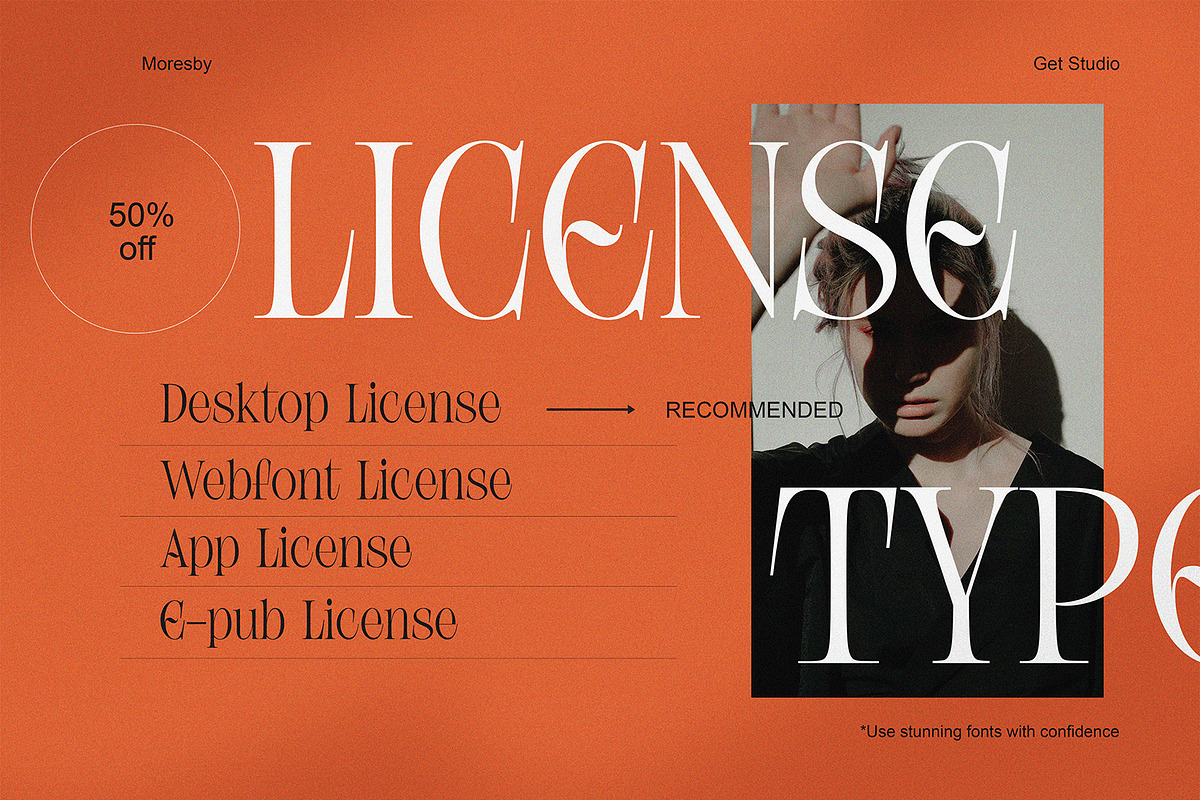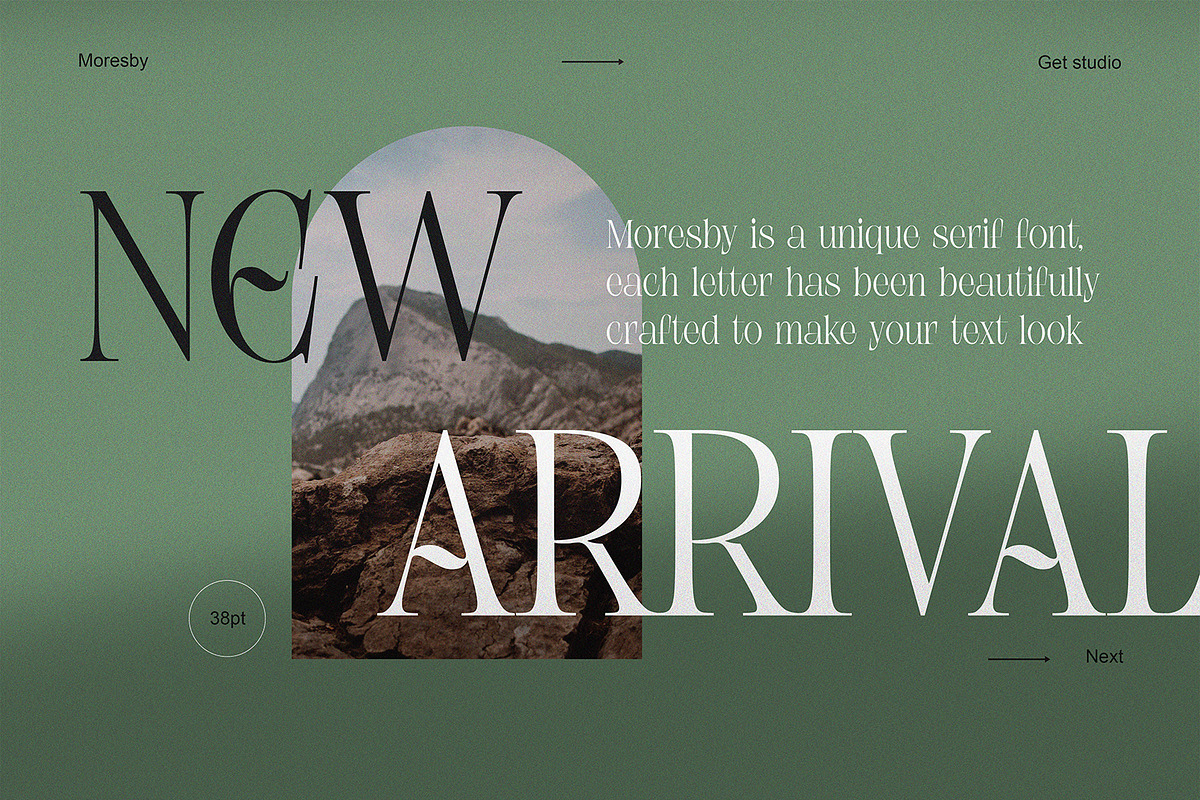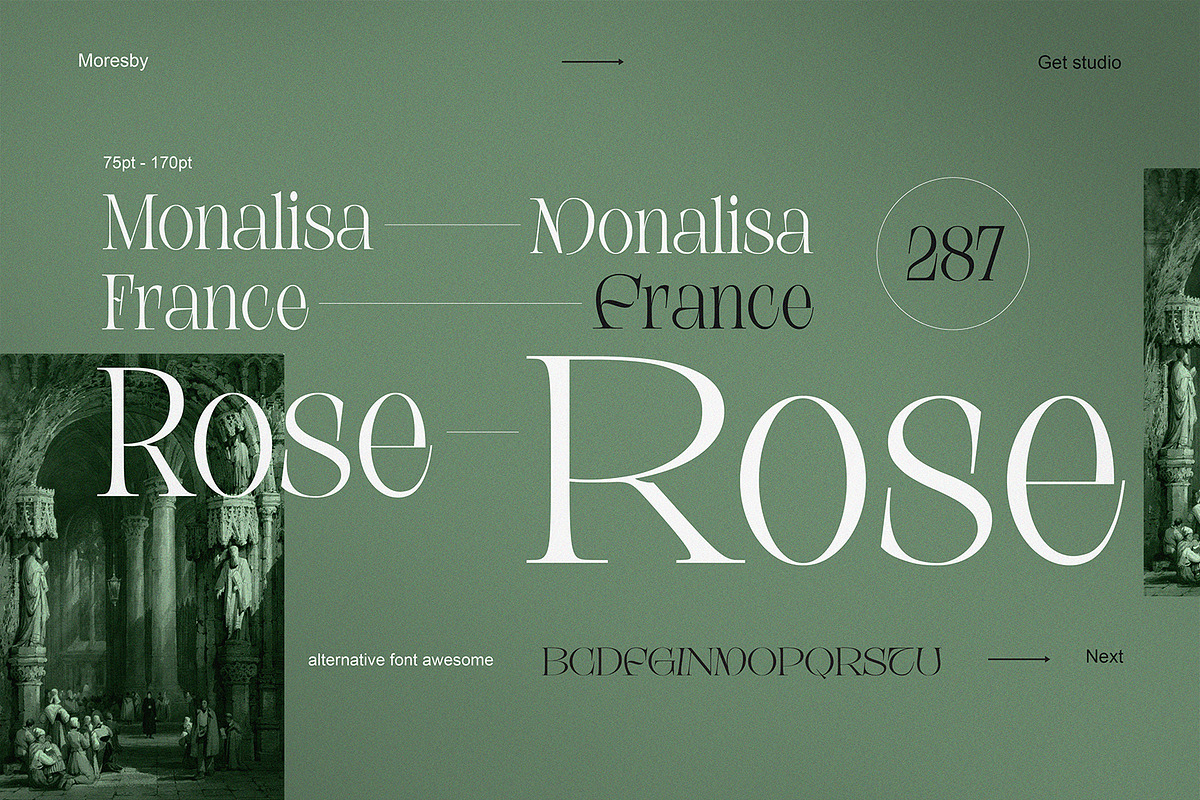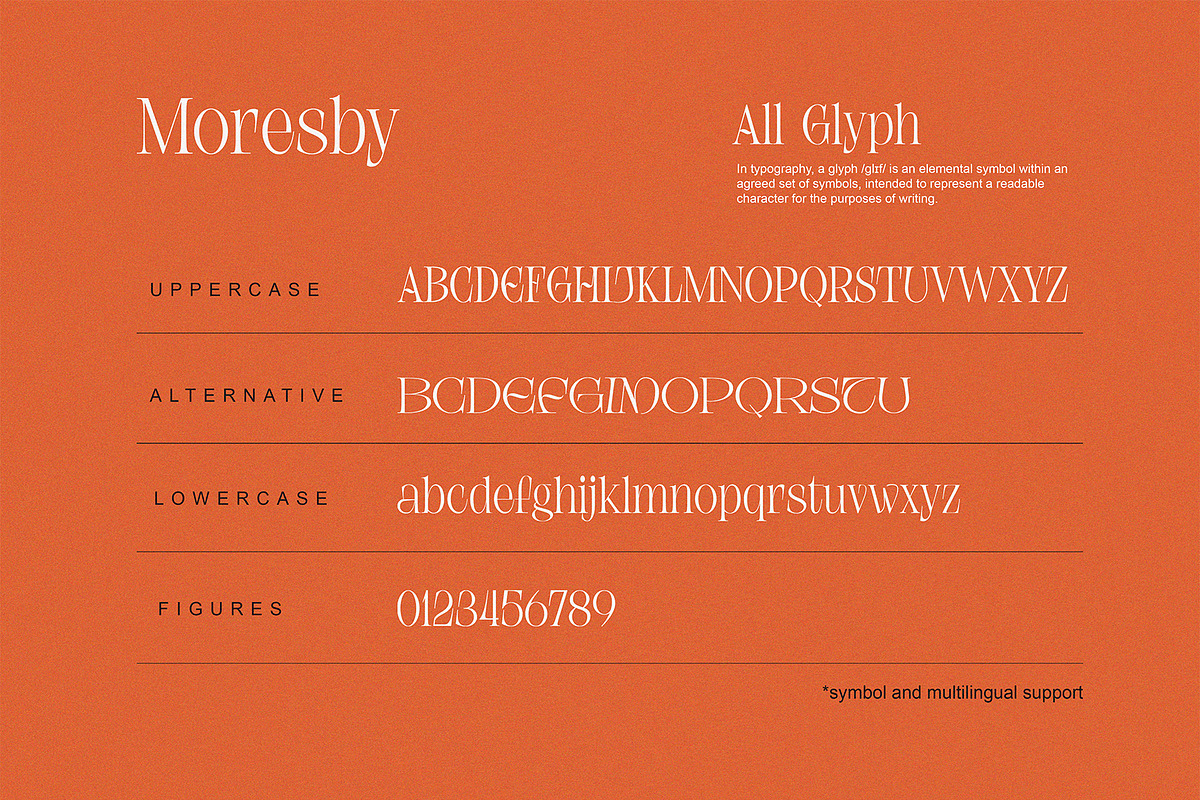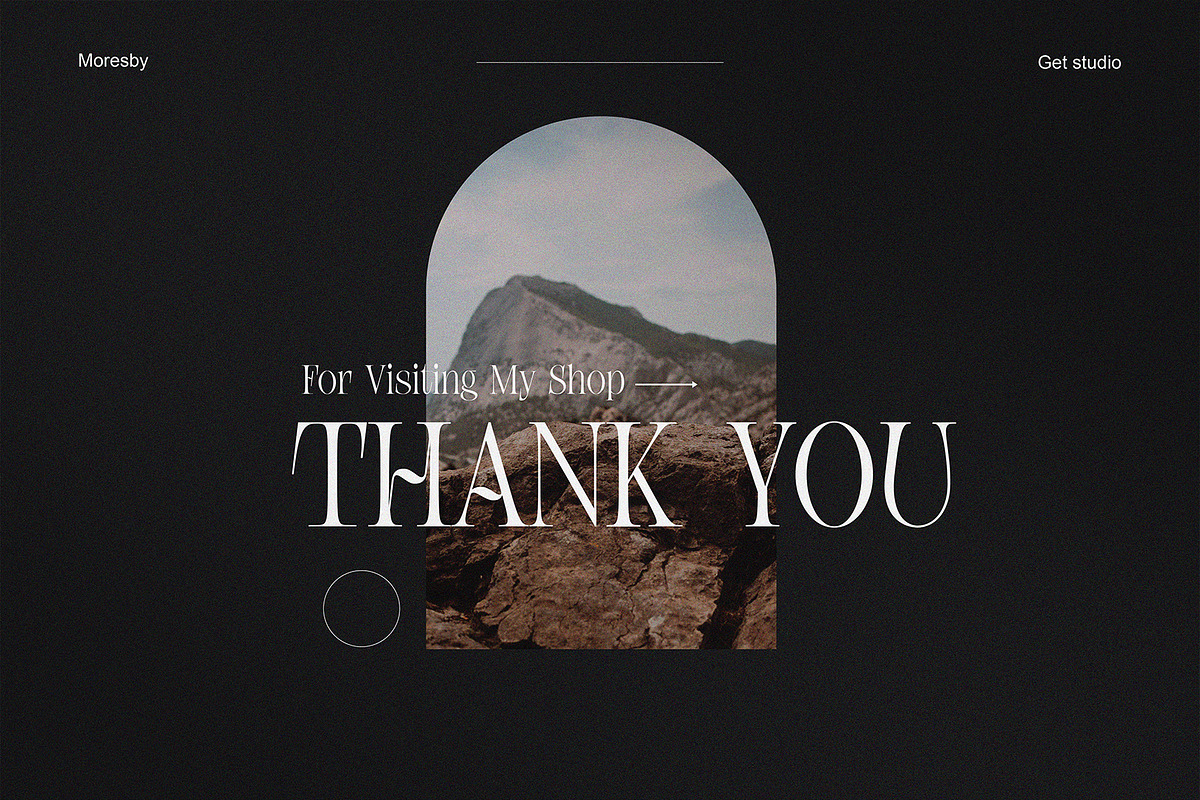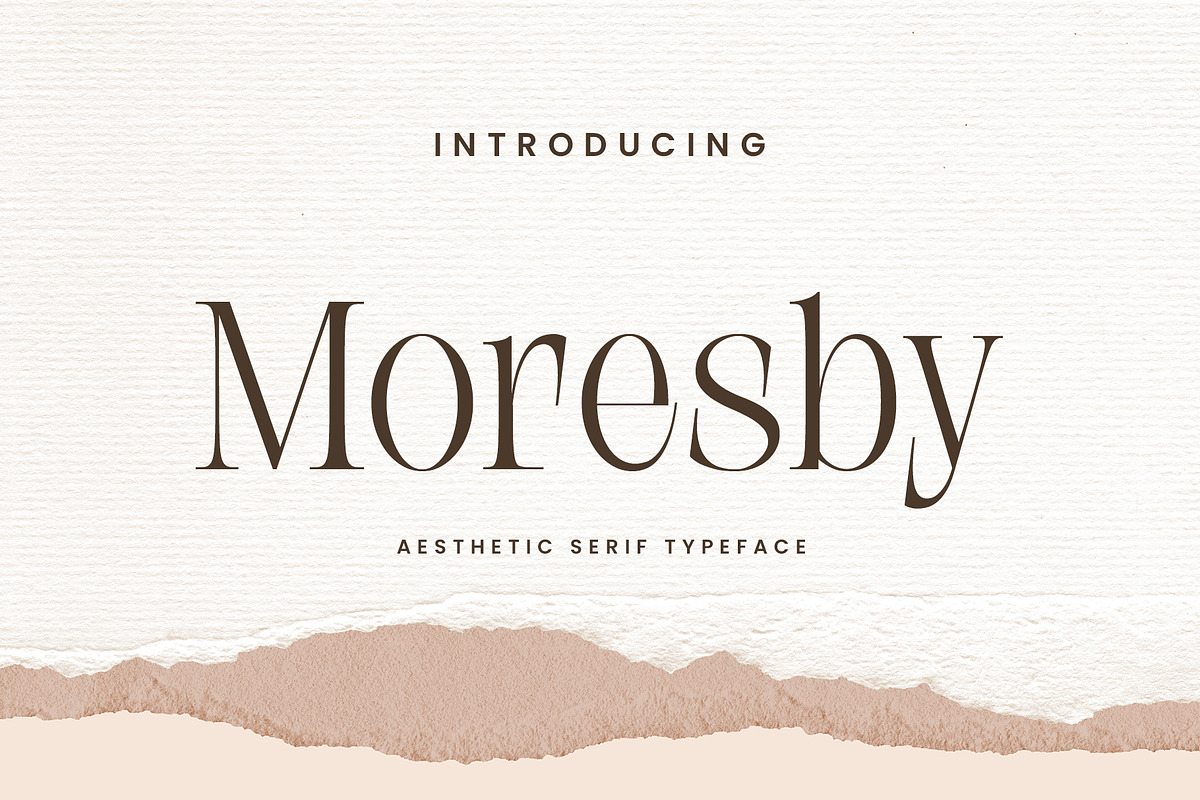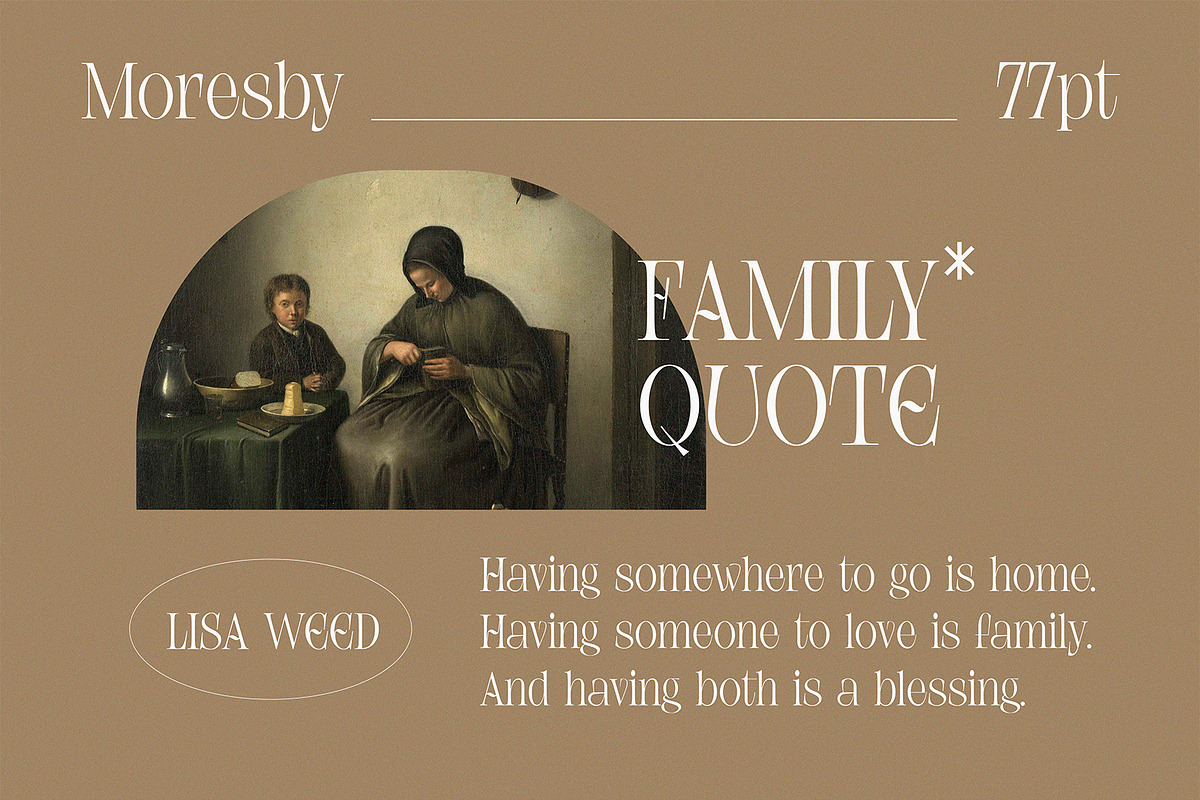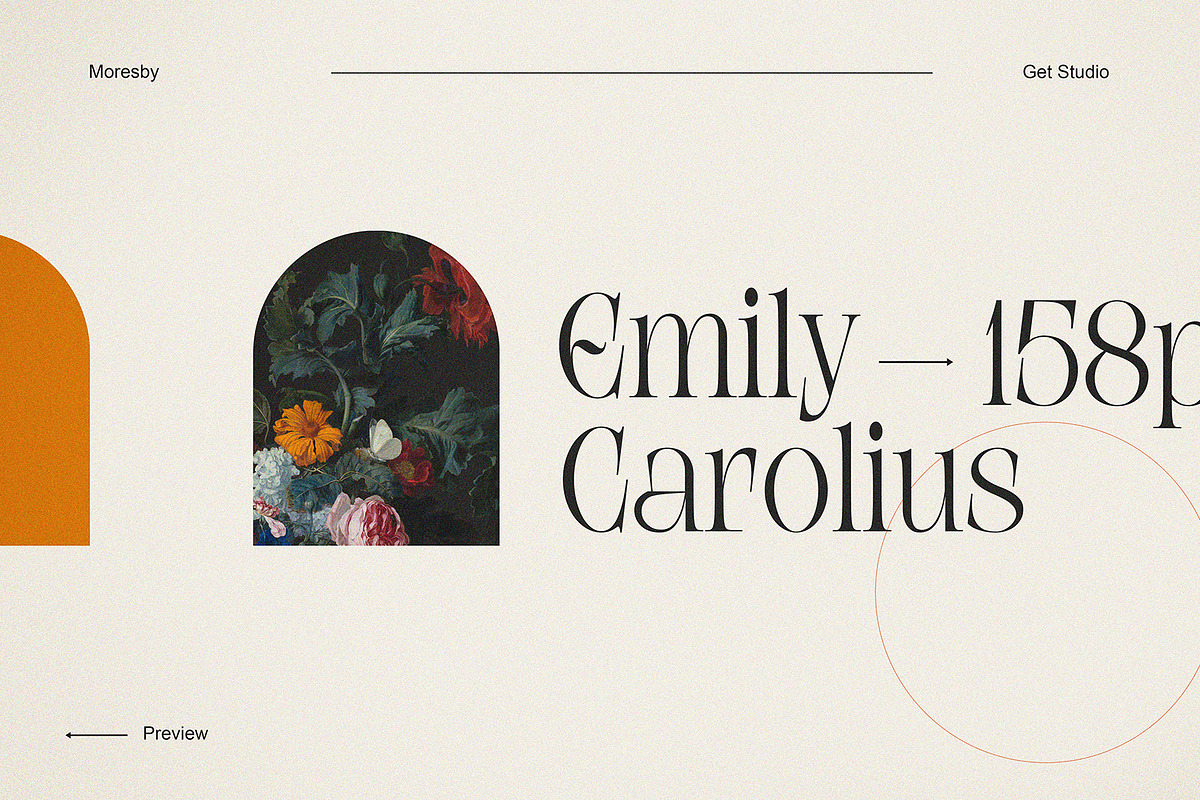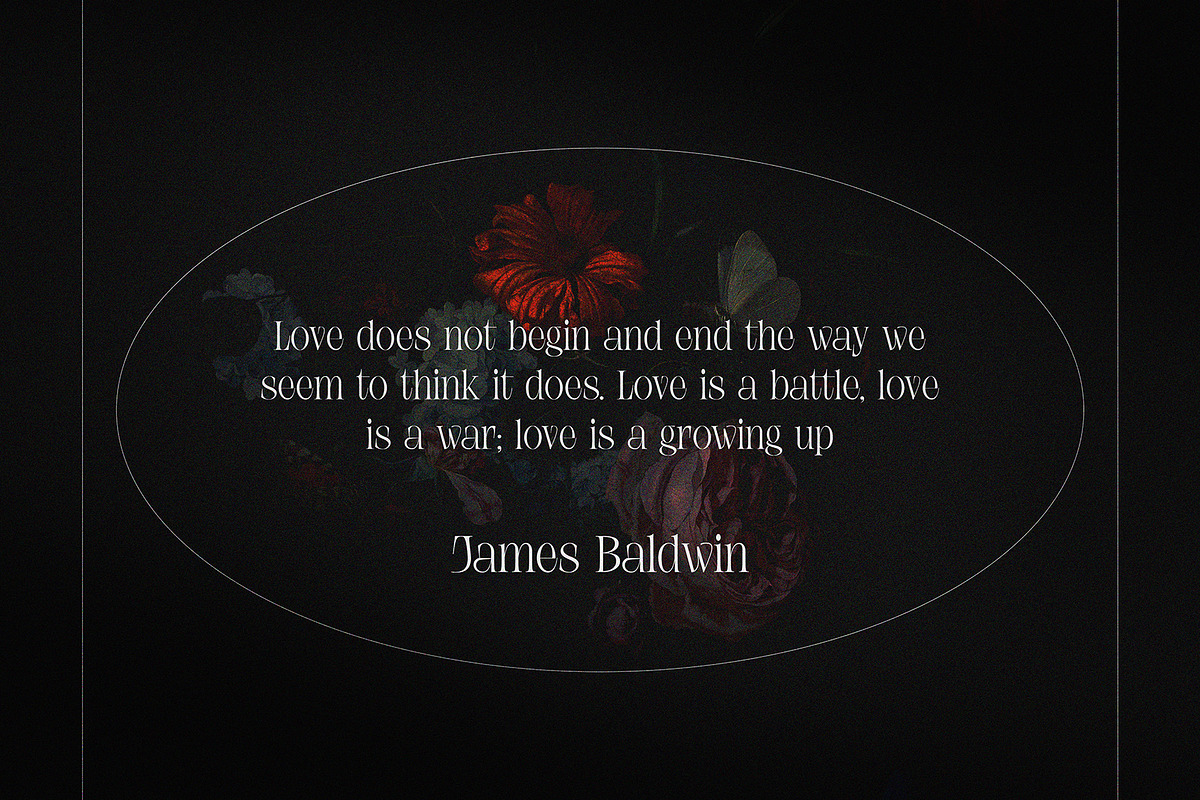
Moresby - Aesthetic Serif Typeface
Moresby is an aesthetic serif typeface with a sharp shape that is perfect for modern retro design. It comes with unique lower and uppercase plus numbers, punctuation & multilingual letters.
You can use it as a logo, badge, insignia, packaging, headline, poster, t-shirt/apparel, greeting card, and wedding invitation.